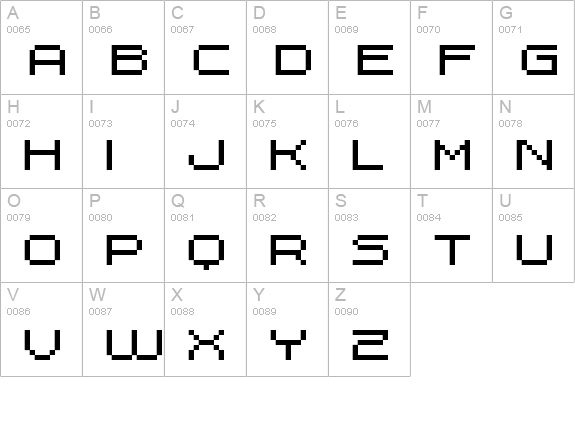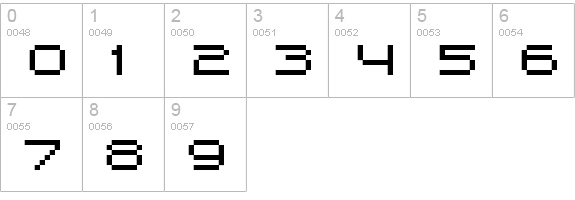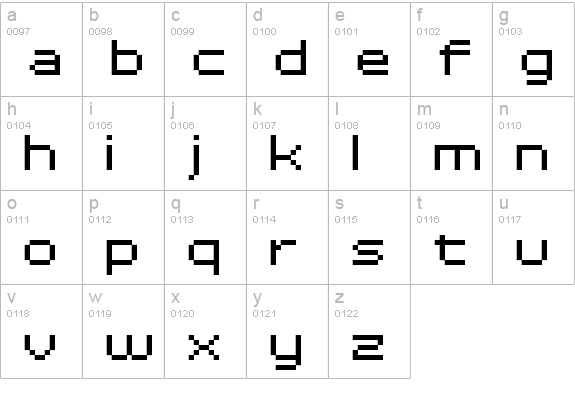
FFF Dreamer Extended is a distinctive, extended-width variant in the FFF typeface family \xE2\x80\x94 well suited to design and typography projects.
The FFF Dreamer Extended font is a whimsical and creative typeface that will bring your designs to life. With its unique and playful appearance, this font is perfect for adding a touch of imagination to any project. Whether you are working on a poster, website, or branding materials, FFF Dreamer Extended will help you stand out from the crowd. What's even better is that this font is available for free download at FontsMarket.com. Yes, you read that right - you can get your hands on this fantastic font at no cost at all. So why wait? Add a dreamy and artistic flair to your designs with FFF Dreamer Extended today!